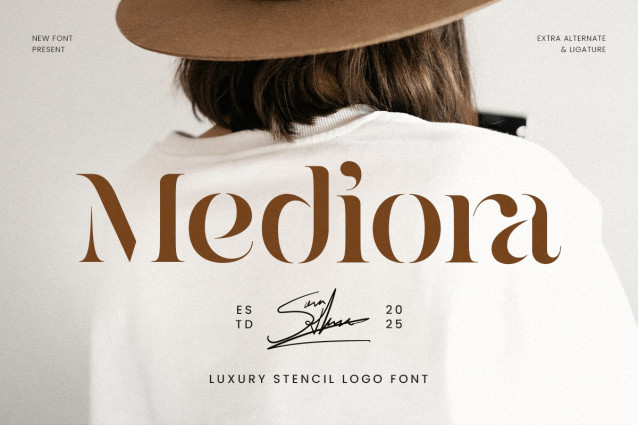
Mediora Font
Mediora Font is a luxury stencil logo font that blends bold structure with refined elegance. Designed to stand out with confidence, Mediora delivers a premium stencil aesthetic that feels modern, exclusive, and powerful. Its sharp cuts and balanced letterforms create a strong visual identity while maintaining a sophisticated tone.
Perfect for luxury logos, high-end branding, fashion labels, editorial headlines, and premium packaging, Mediora offers a distinctive look that sets brands apart. The stencil details add character and authority, making it ideal for designers seeking a bold yet polished typographic solution.
Whether used for logo design, brand identity, posters, or upscale marketing materials, Mediora brings a confident luxury presence that feels contemporary and unforgettable.